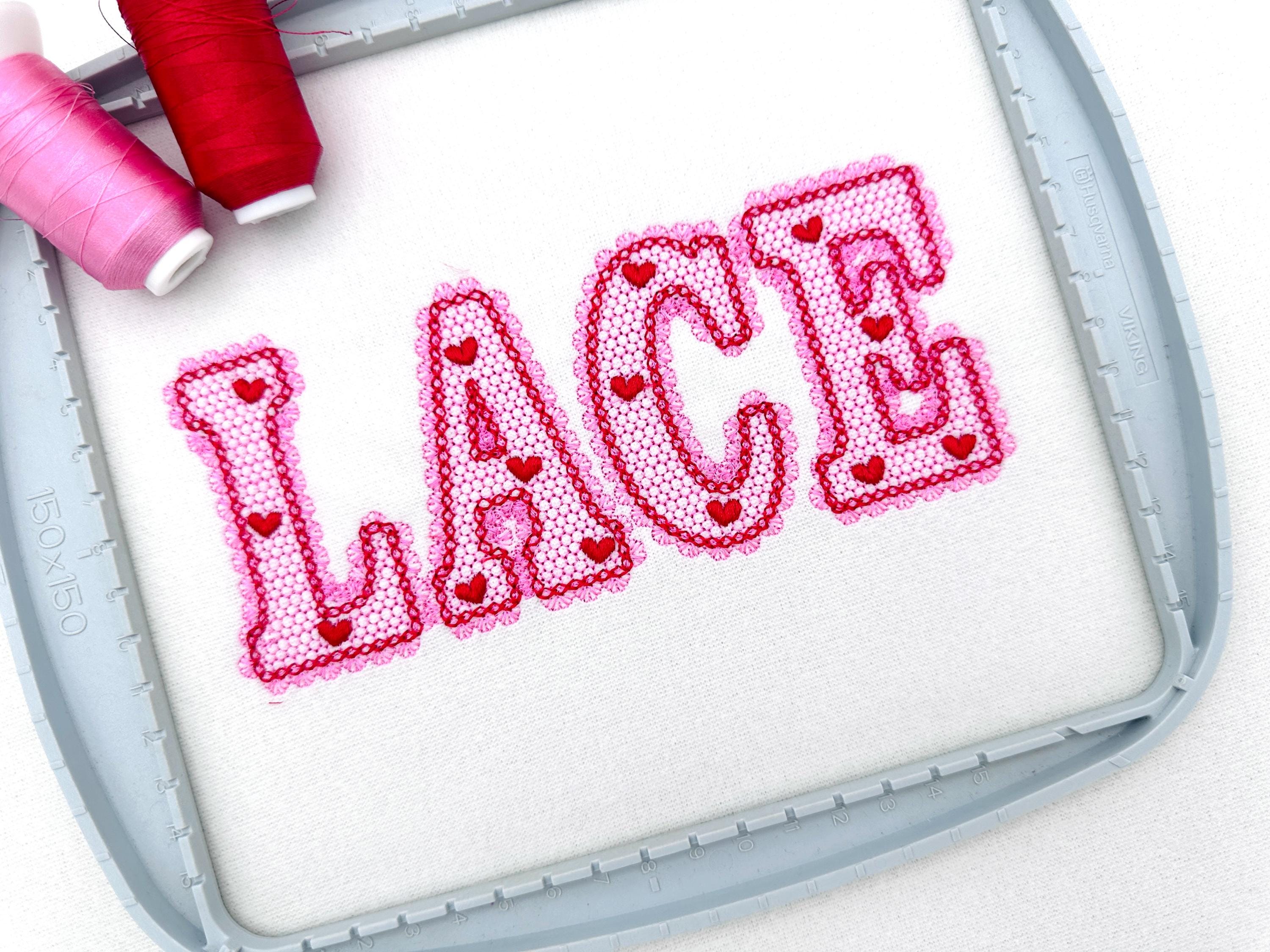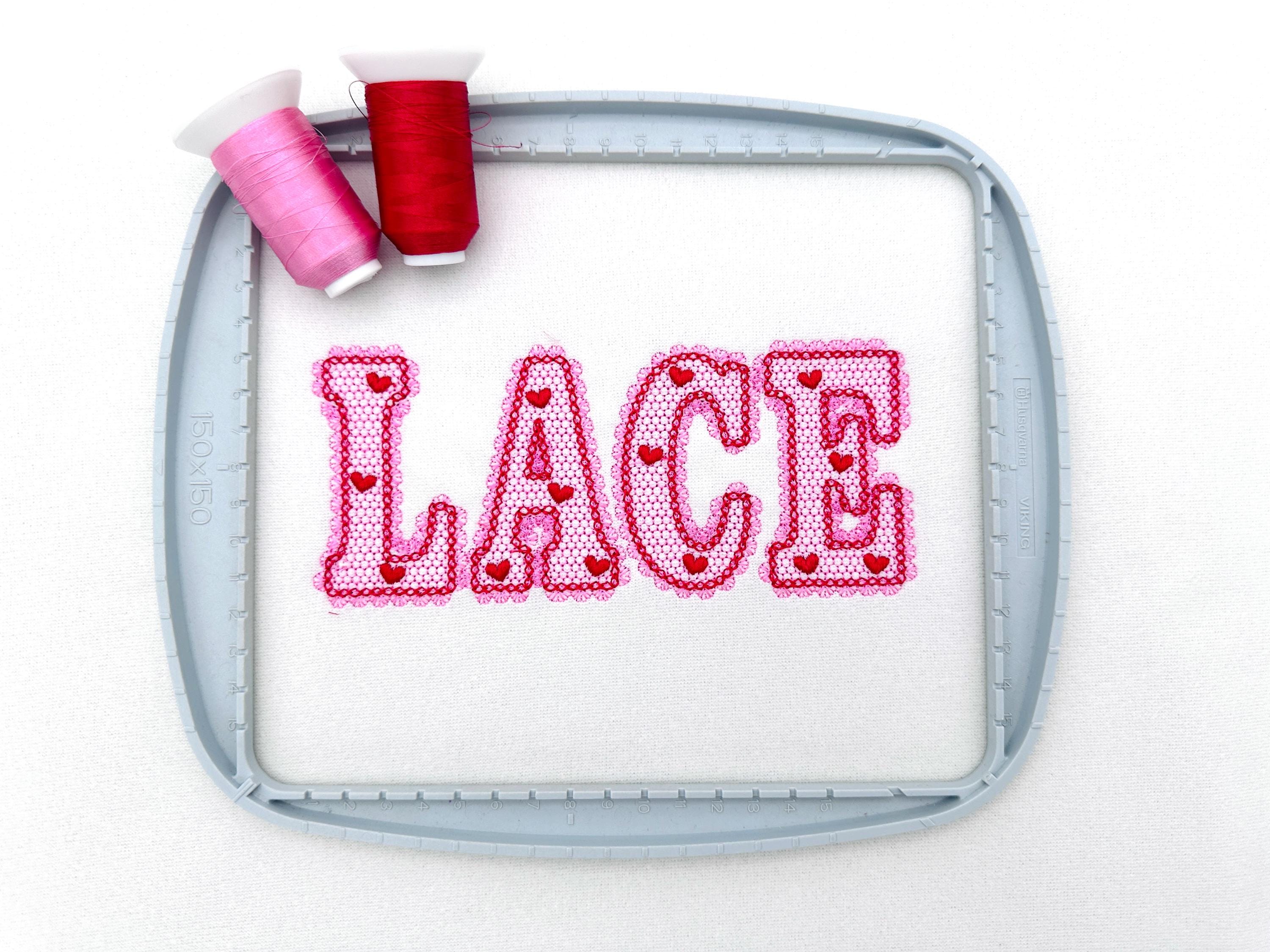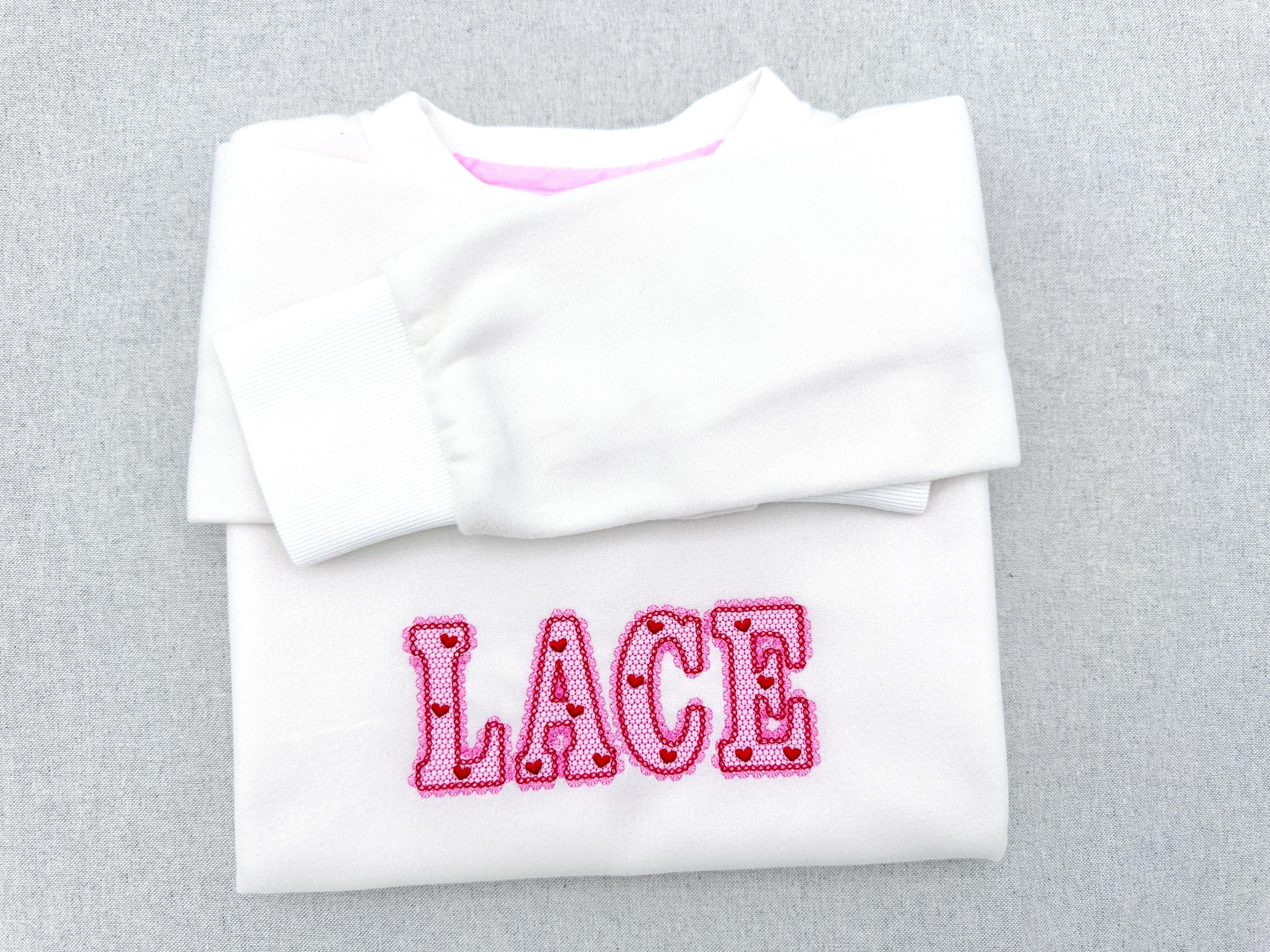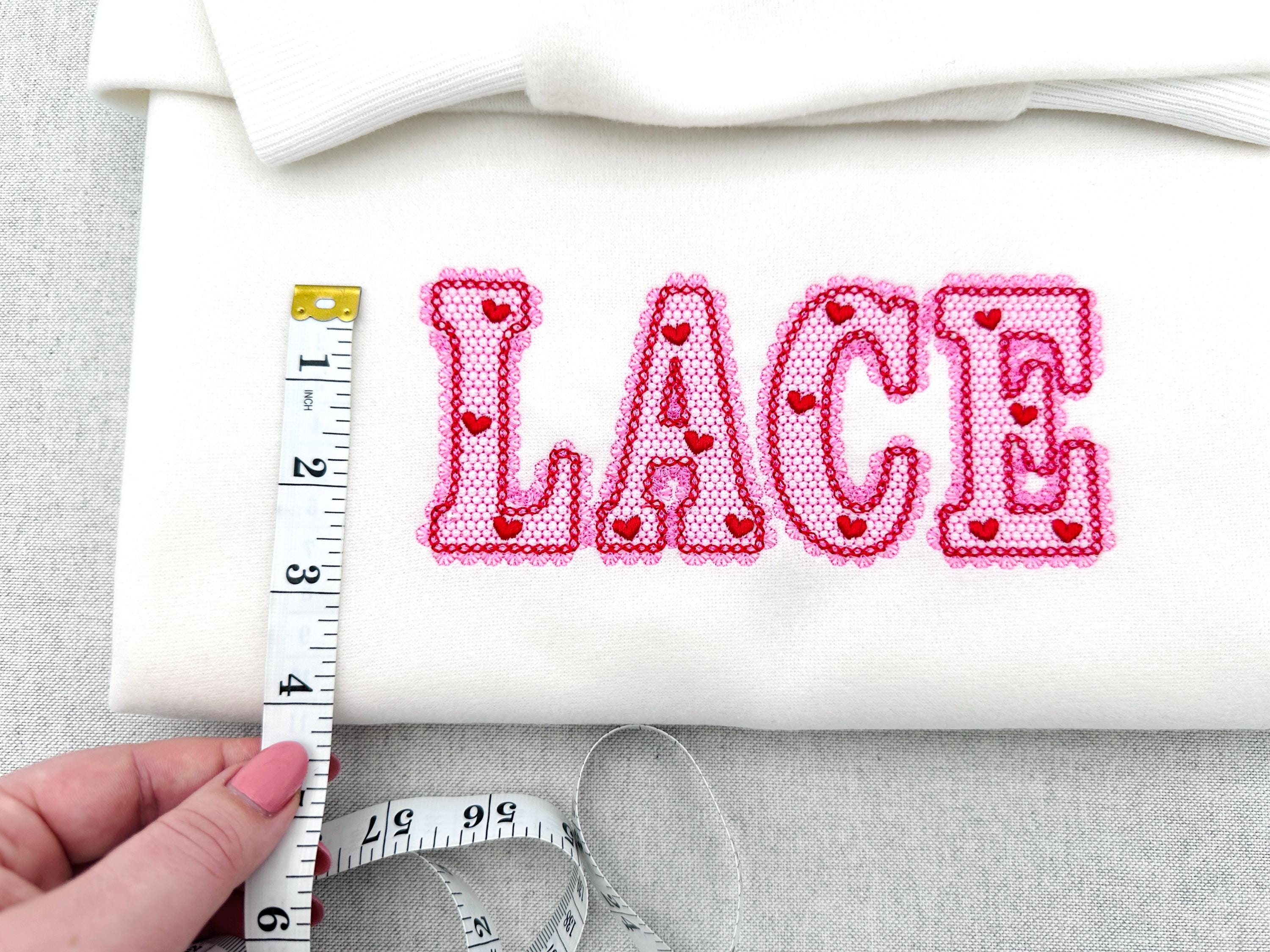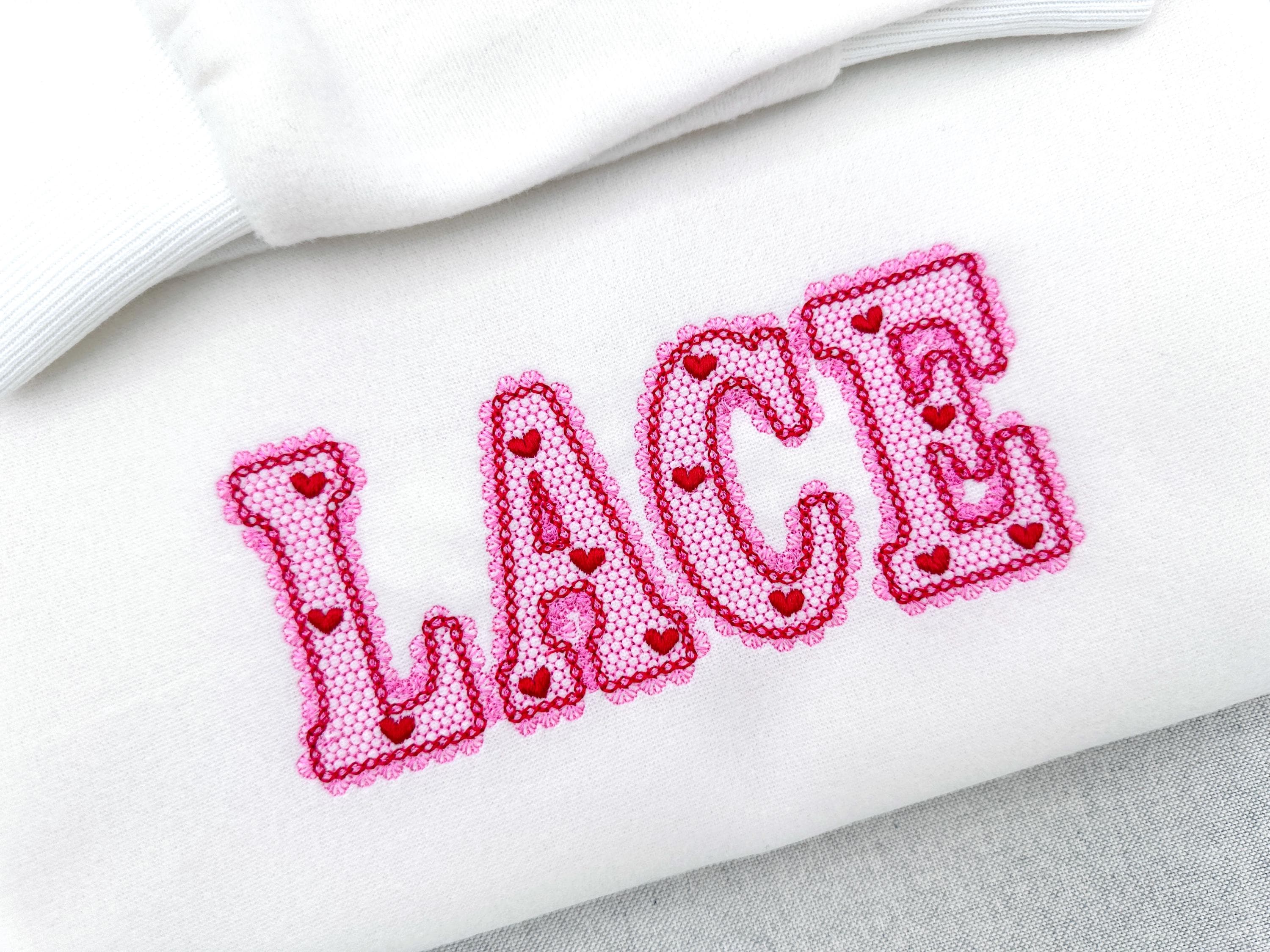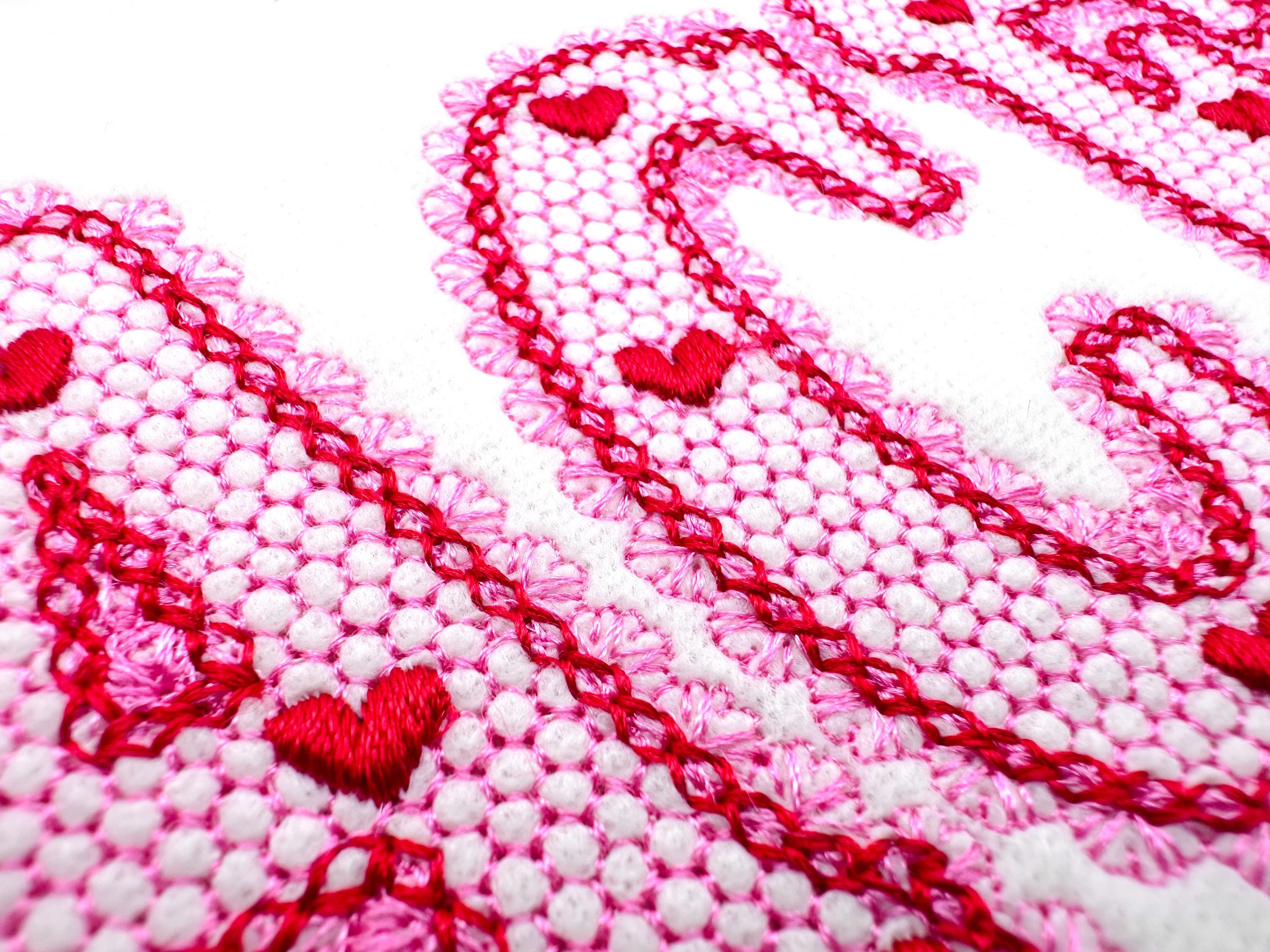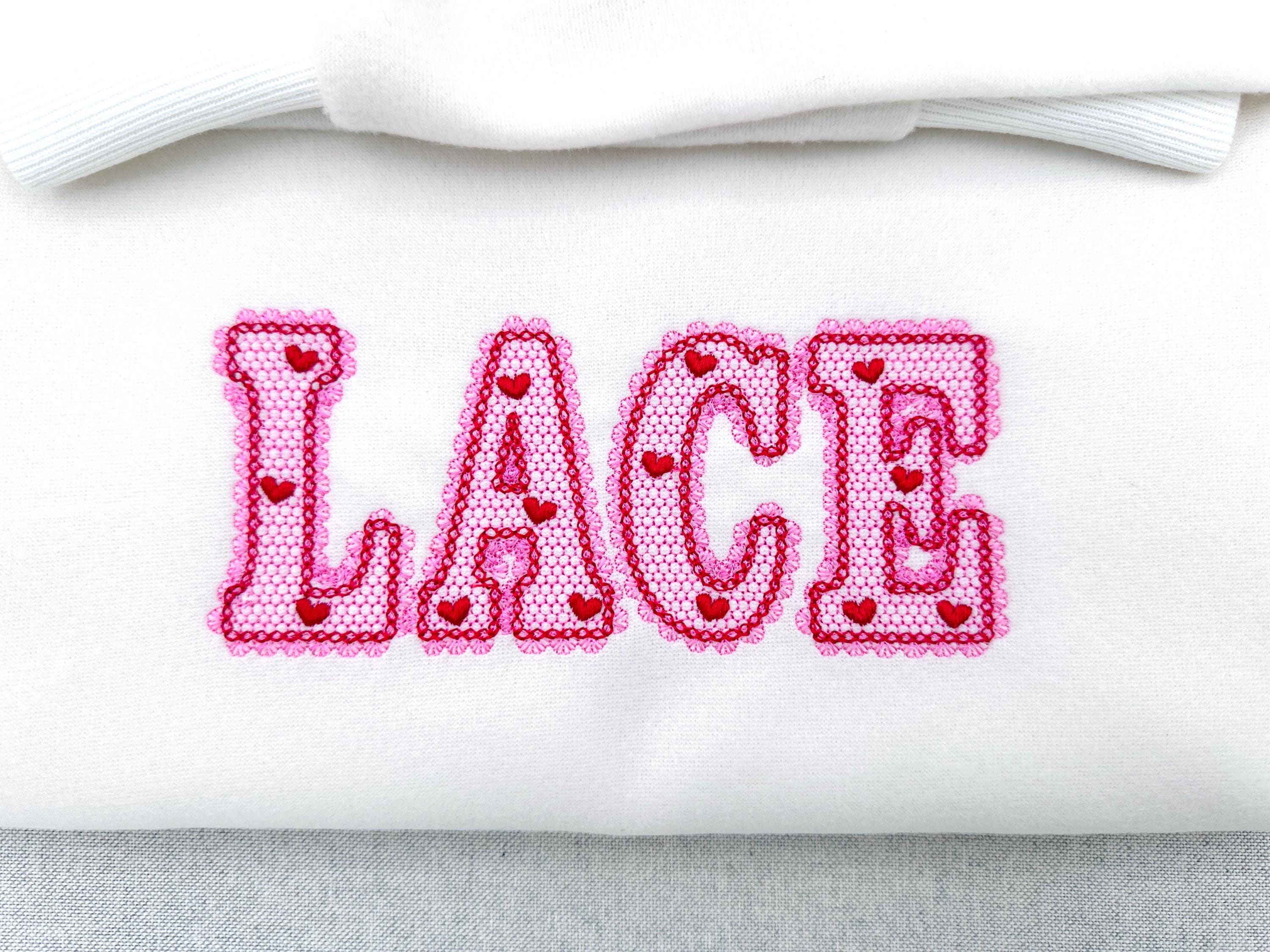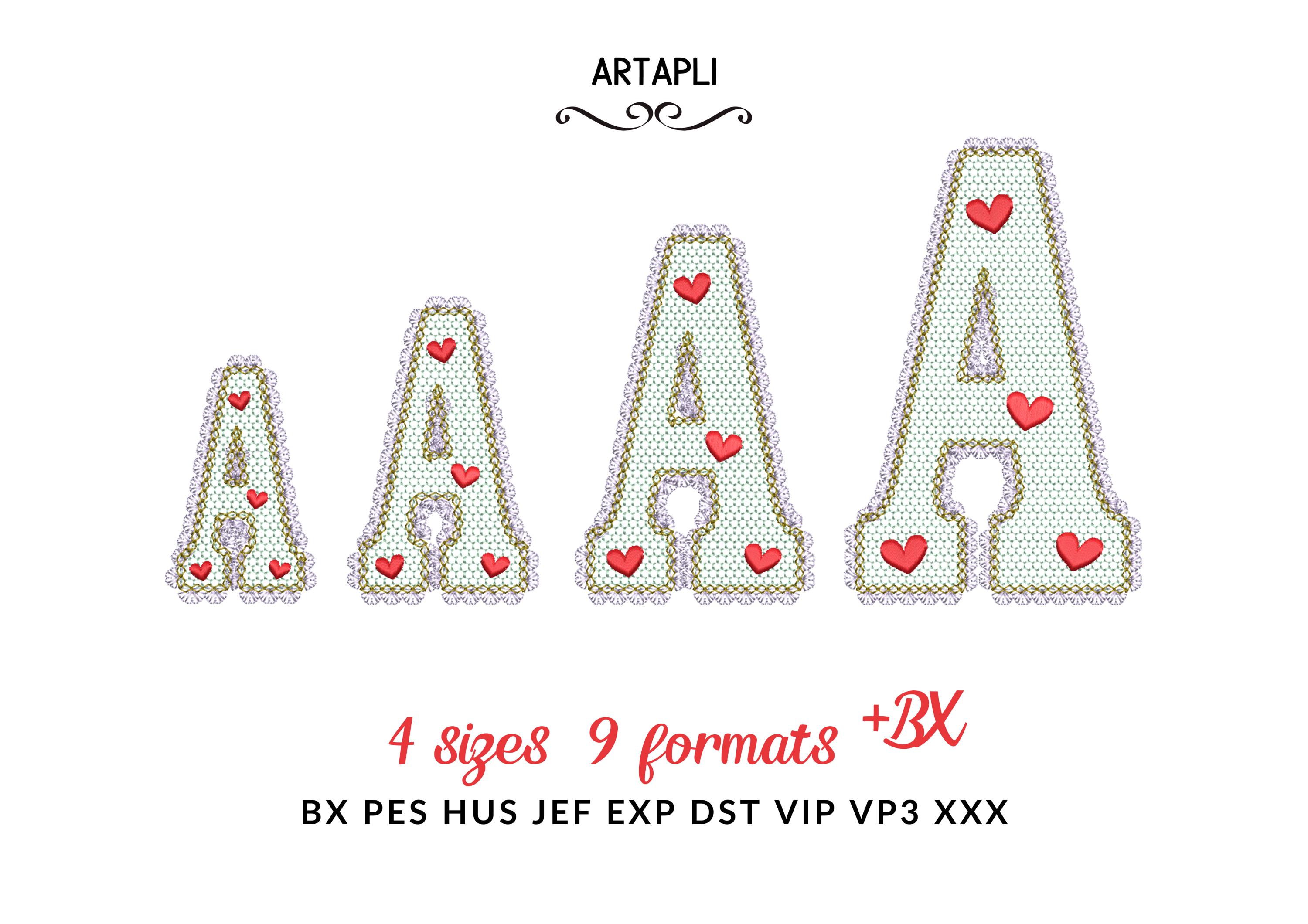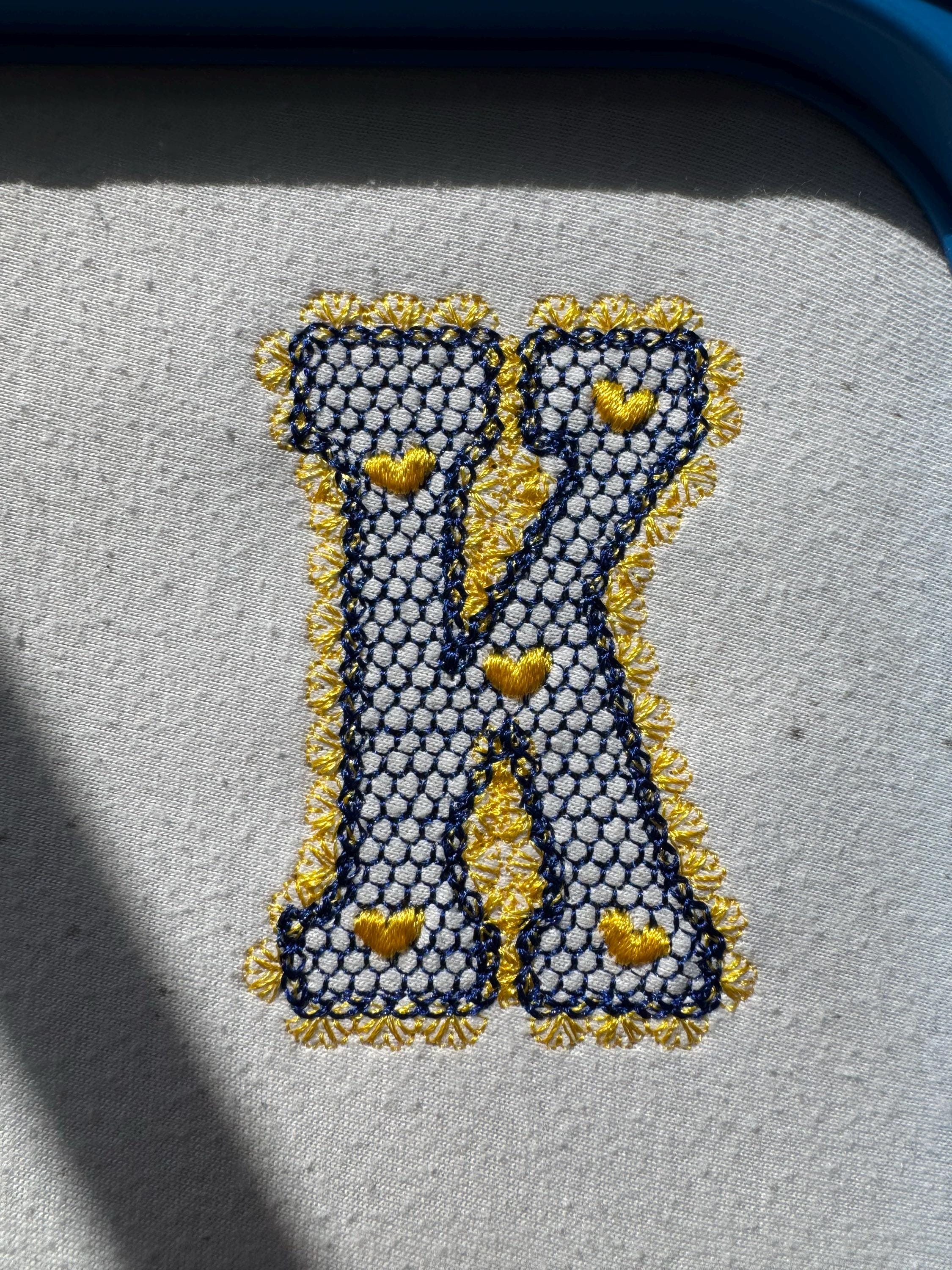
Lace Edge Valentine FONT lace patterned Alphabet Monogram Heart patterned letters machine embroidery designs sizes 2.9 up to 5.4 inch, BX
Lace pattern and lace edge are part of the design. The background fabric looks through. Stunning effect!
Entire alphabet uppercase letters A-Z, numbers 0-9, and ampersand &.